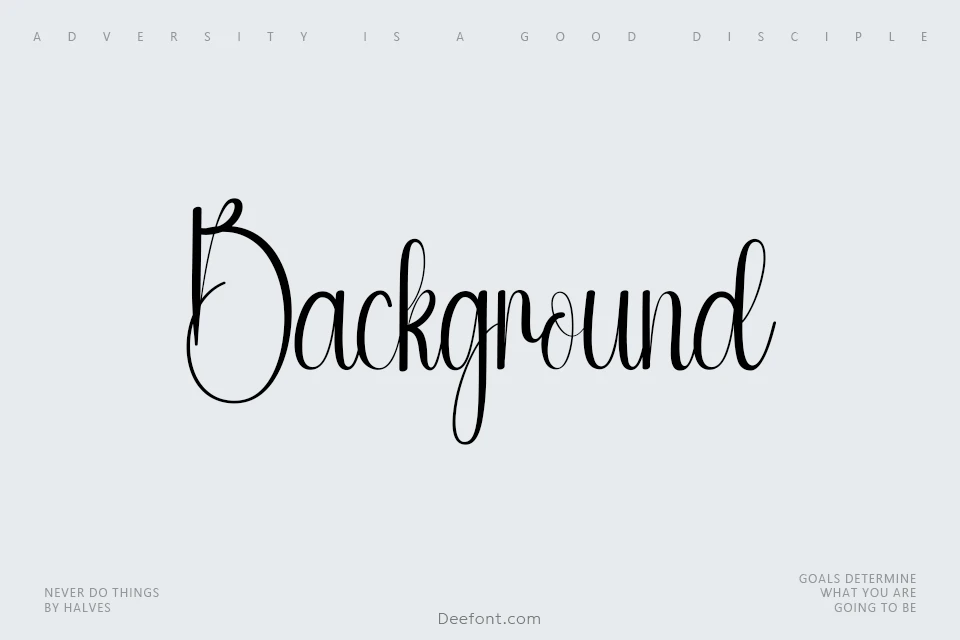
Background Calligraphy Font
Background Calligraphy Font is a new handwritten font that combines elegant calligraphic strokes with modern flourishes. Its graceful, flowing lines and decorative swashes make it perfect for creative projects such as invitations, branding, packaging, and social media graphics. The font’s stylish handwritten look adds a touch of sophistication and charm to any design, making it ideal for those seeking a blend of tradition and contemporary flair.